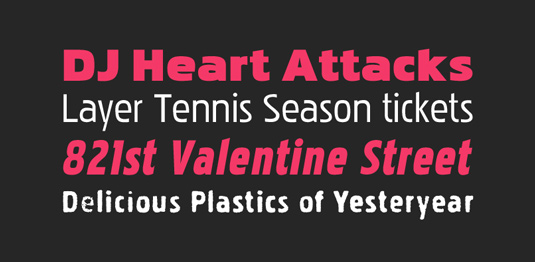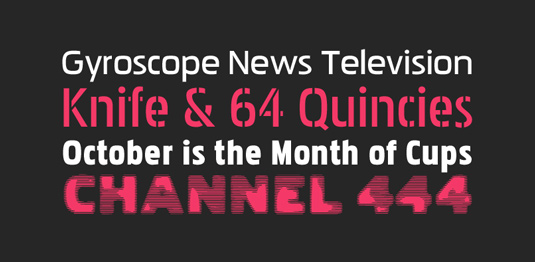
Font of the day: Pakenham Regular
Every day we showcase the best fonts on the web. Today it's Pakenham Regular by Ray Larabie, which is free for personal and commercial use.
Pakenham Regular by Ray Larabie
Founder of Typodermic Fonts and type designer Ray Larabie is behind today's font of choice Pakenham Regular. Available from HypeForType, and inspired by Paul Renner's 1950s creation, Steile Futura, Pakenham is described as having 'an upright, modern look with gently turned corners and generously proportioned loops'.